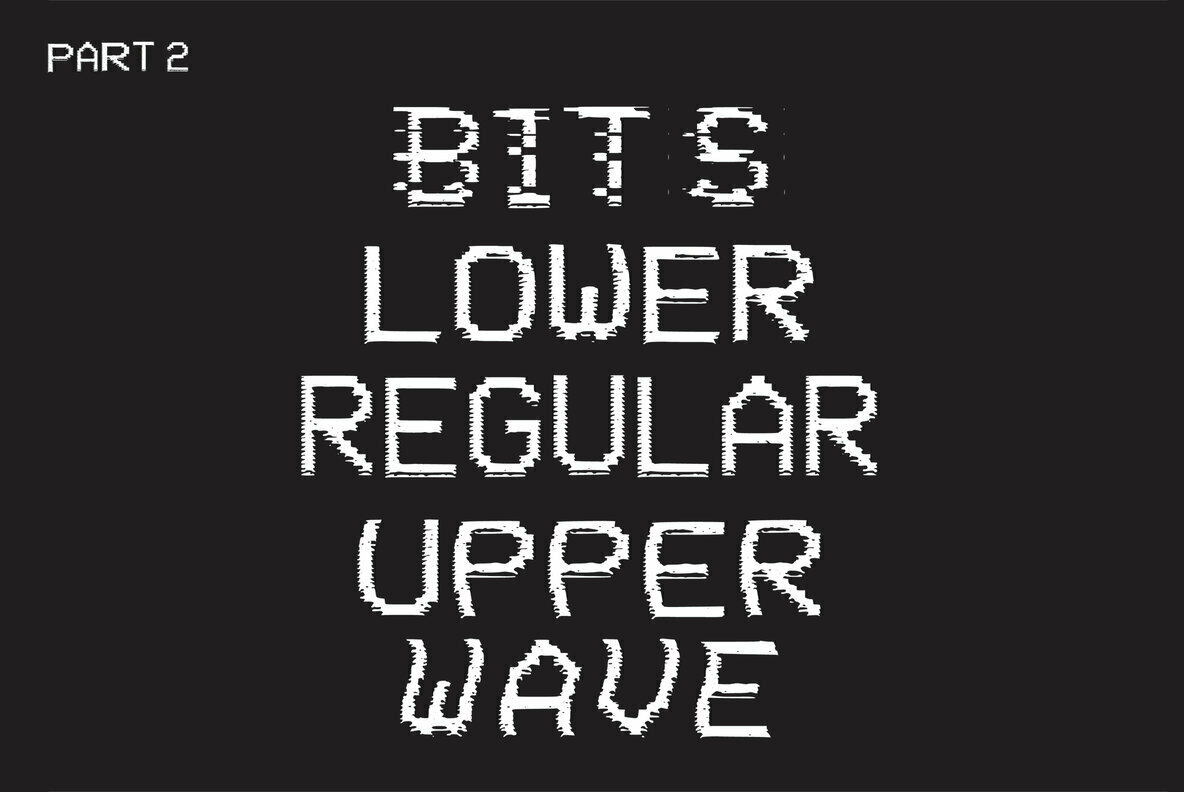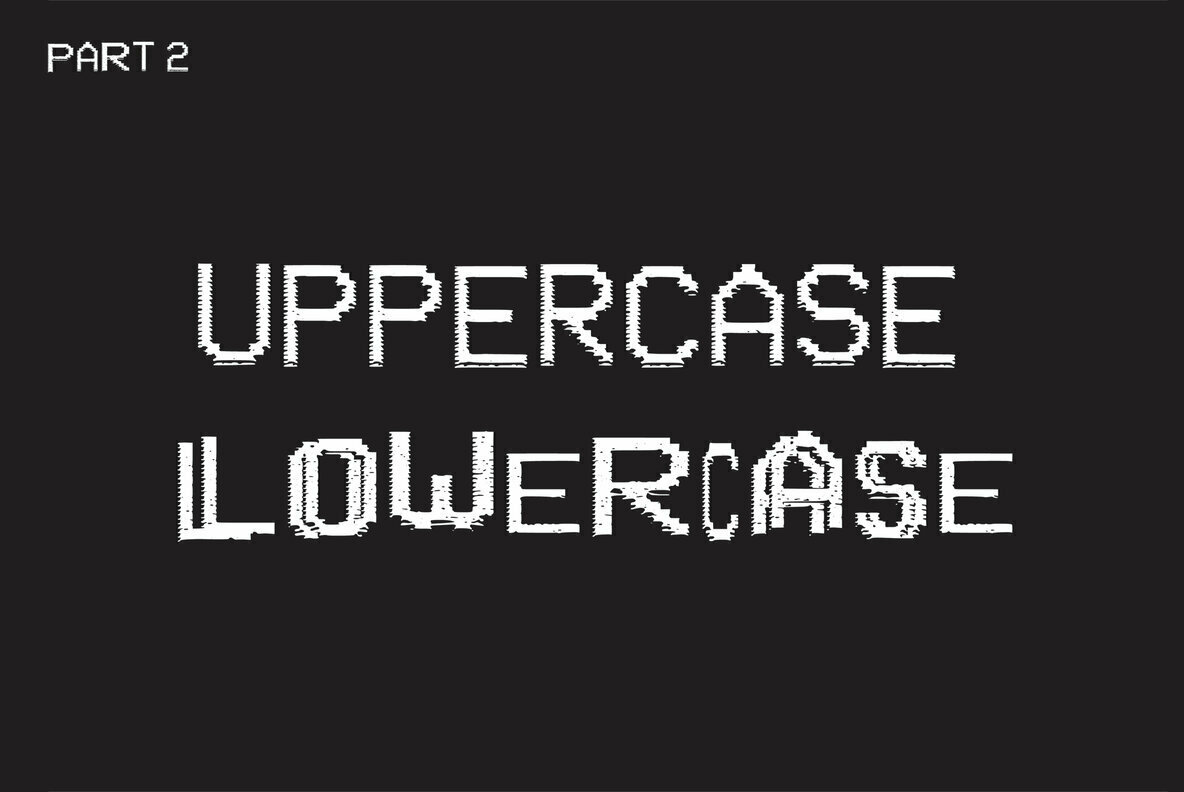
VHS Glitch 2 Font
VHS Glitch 2 is a retro screen video typeface featuring 5 styles all with two styles in uppercase. It’s an ideal font for any retro lover, designer or hacker!